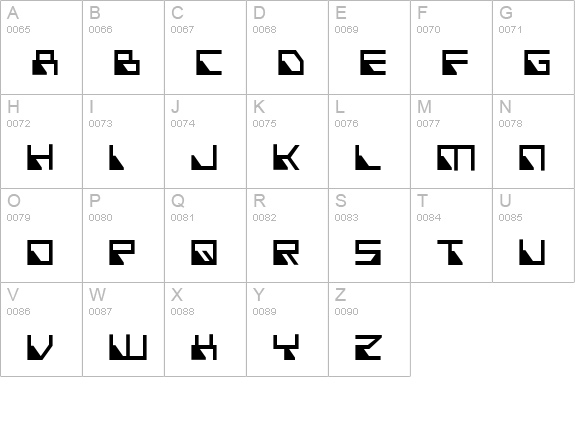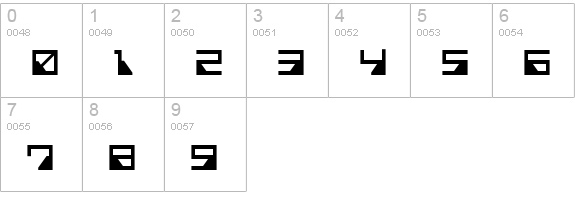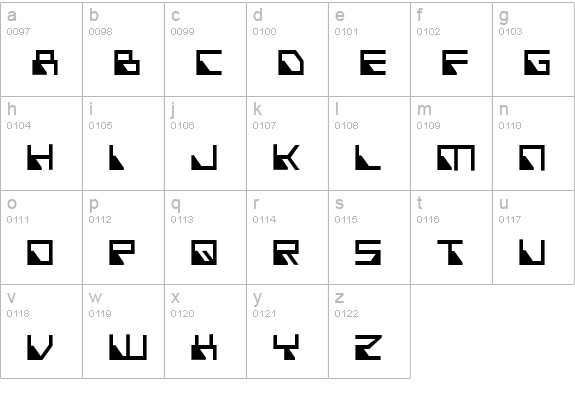
Nonfiction Font Details
The Nonfiction font is a modern and sleek typeface perfect for all your nonfiction writing needs. With its clean lines and readability, this font is ideal for books, articles, and reports. The Nonfiction font exudes professionalism and sophistication, making your text stand out with clarity and elegance. Best of all, the Nonfiction font is available for free download at FontsMarket.com. Simply visit the website to get your hands on this versatile font and enhance your nonfiction projects with style and finesse. Don't miss out on this fantastic opportunity to elevate your writing with the Nonfiction font - download it today!